A Typeface Created From Berlin Wall Graffiti Is a Sobering Reminder of Why Freedom Matters
On Nov. 9, German nonprofit Die Offene Gesellschaft (The Open Society) sent a letter to the White House urging the president to reconsider his position on a wall at the U.S.-Mexico border. The heartfelt plea wasn’t written on paper, but rather a piece of the actual Berlin Wall, which was erected in 1961 as a way of separating East and West Germany during the Cold War.
Stretching across 27 miles and standing at 12 feet, the wall separated many Germans from their loved ones, leaving them unable to make contact. Before its fall in 1989, about 80 people died trying to cross to the West—and it’s remembered now as a relic of brutality, oppression and significant loss. With that in mind, the organization’s message was clear: Walls don’t work.
Another group, a collective of street artists known as The Cultural Heirs, has created a campaign that is both a celebration of the Berlin Wall’s demise and a sobering reminder of the atrocities that the wall’s existence incited.
With the help of Berlin-based creative agency Heimat, The Cultural Heirs has launched “Voice of the Wall” to explore one question: If the Berlin Wall were alive, what would it say? Using actual graffiti from the wall itself, the short film takes on an anthropomorphic perspective as the “wall” shares what it saw, from the many incidents of bloody violence that punctuated its history to, decades later, freedom.
Underscoring the dialogue are sounds of gunshots, sirens and strife that bring viewers right into the action. It’s appropriately terrifying, the wall having witnessed horrors that only those who were there would understand. All of this culminates in one evergreen conclusion from the campaign’s centerpiece: “If I could ask you for one thing: Do not rebuild me, nowhere. Not even in your mind.”
Accompanying the film is a website where users can generate their own messages of reflection, freedom and love, presented in a font created with authentic graffiti from the wall. The typeface was created from photographs and research of the remaining wall, which The Cultural Heirs gathered over three months.
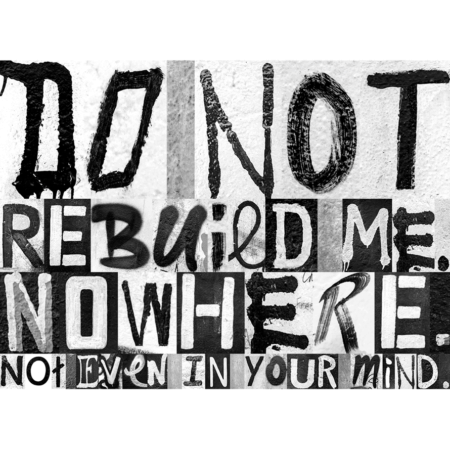
From there, the distinctive lettering will carry messages of healing wherever visitors decide to post the final graphic, which will most likely grace social media headers. While the images without context may register to some as a trendy means of decor, the association hopes that they’ll prompt others to dig a little deeper and learn more about the origins of the art.
And, hopefully, “Voice of the Wall” will serve as a reminder that those who fail to learn from history—especially those with immense power—are doomed to repeat it.